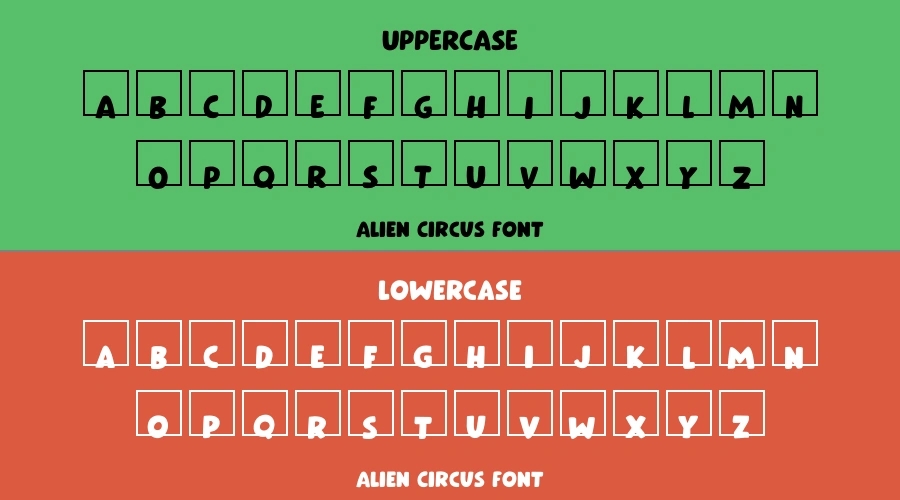
About Alien Circus Font
Alien Circus Font stands out for its distinctive combination of balanced weights and creative expression. Ideal for wayfinding systems, it provides the elegance and visual authority that professional projects demand. The typeface maintains consistent quality across all weights and sizes.
Key features include refined distinctive terminals and practical stylistic alternates, enhancing typographic expression. In logos applications, Alien Circus Font demonstrates exceptional compatibility. The curve radius and generational relevance contribute to its distinctive character and professional appeal.